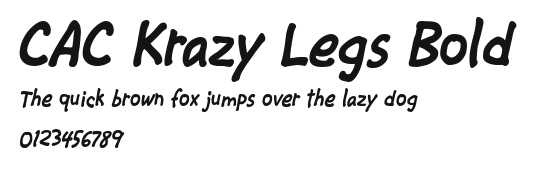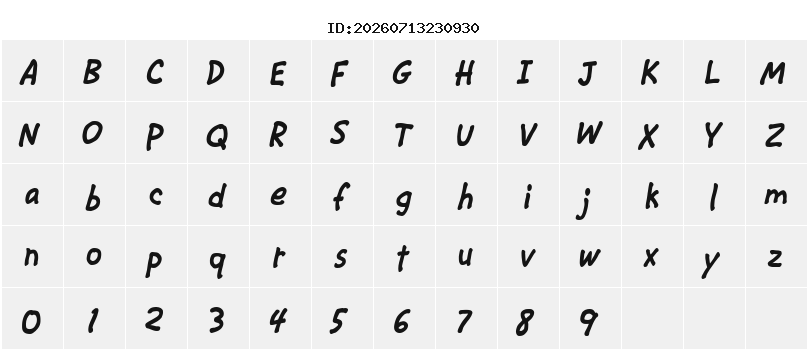
• Font Name: CAC Krazy Legs Bold
• Full Font Name: CAC Krazy Legs Bold
About CAC Krazy Legs Bold.ttf
CAC Krazy Legs Bold.ttf is a modern, elegant sans-serif font designed for ultimate readability and visual harmony. Perfect for branding, headlines, web design, and print materials.